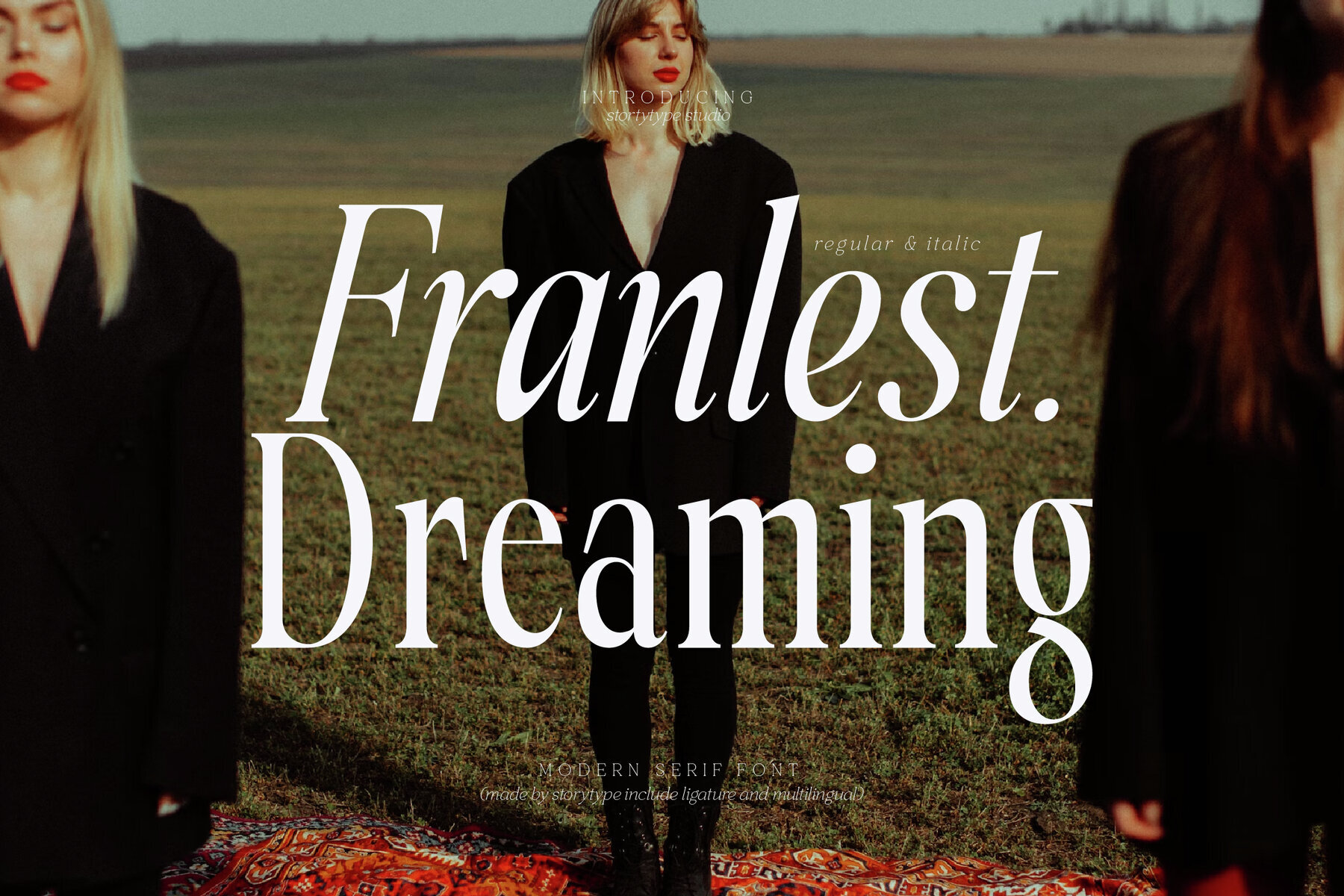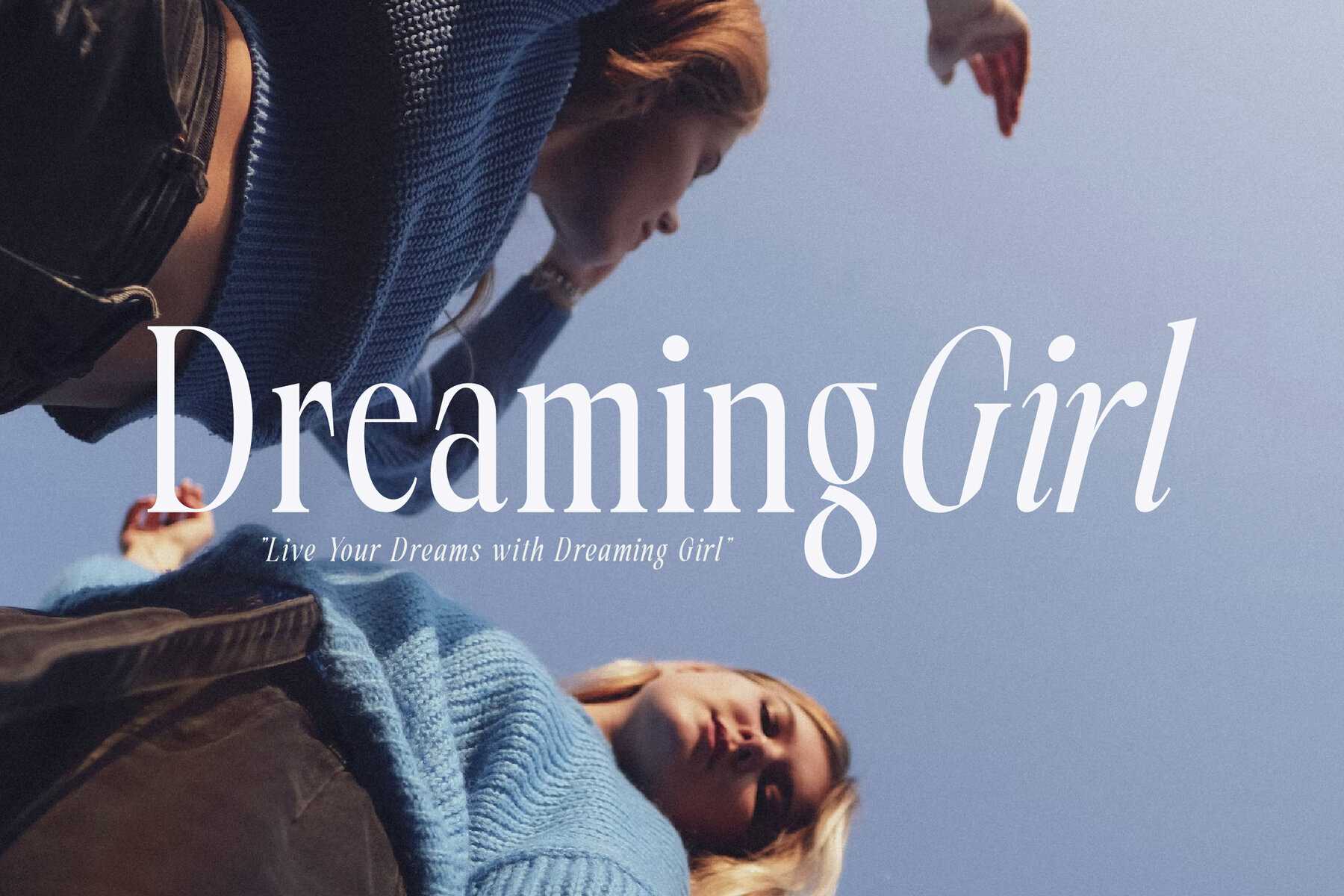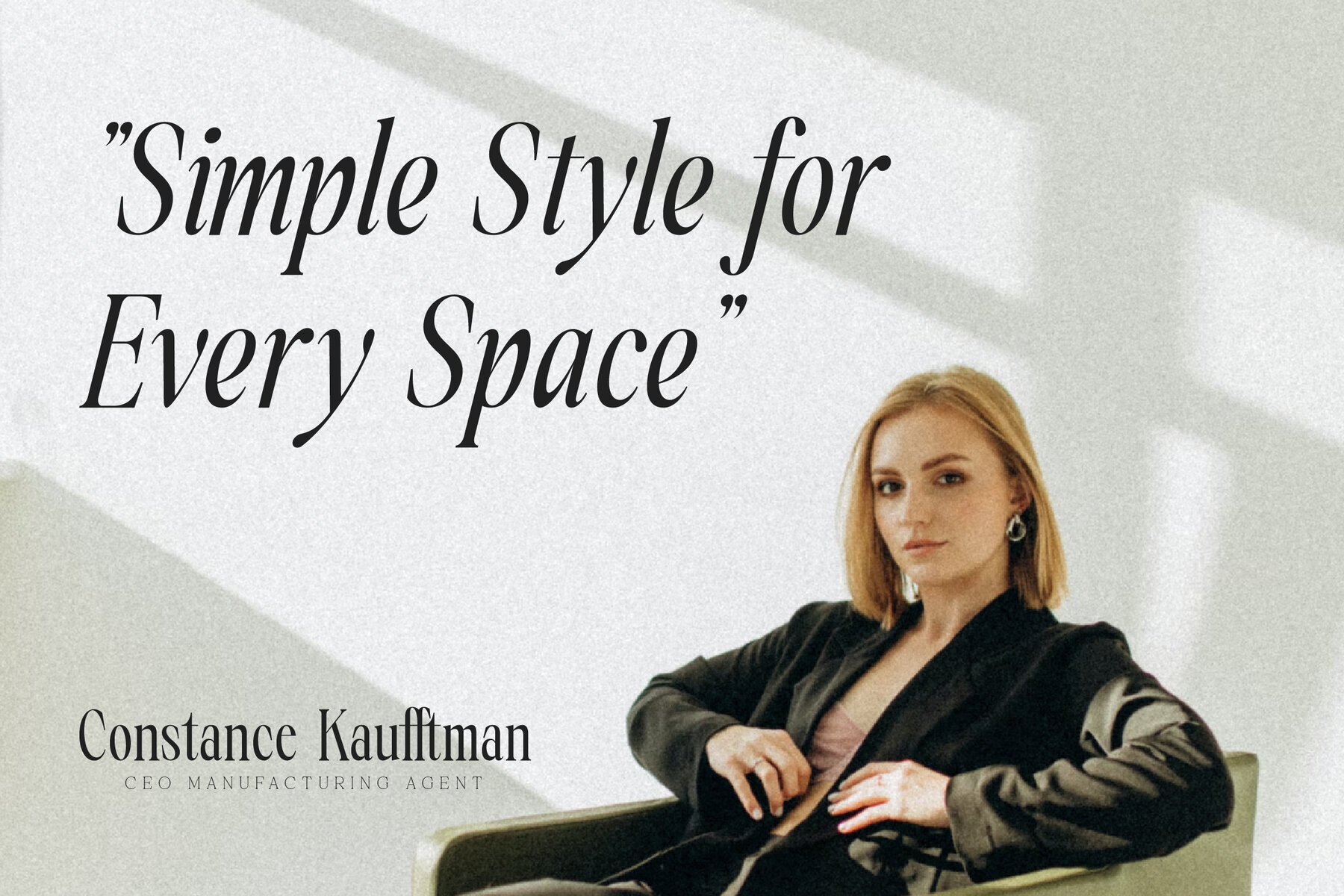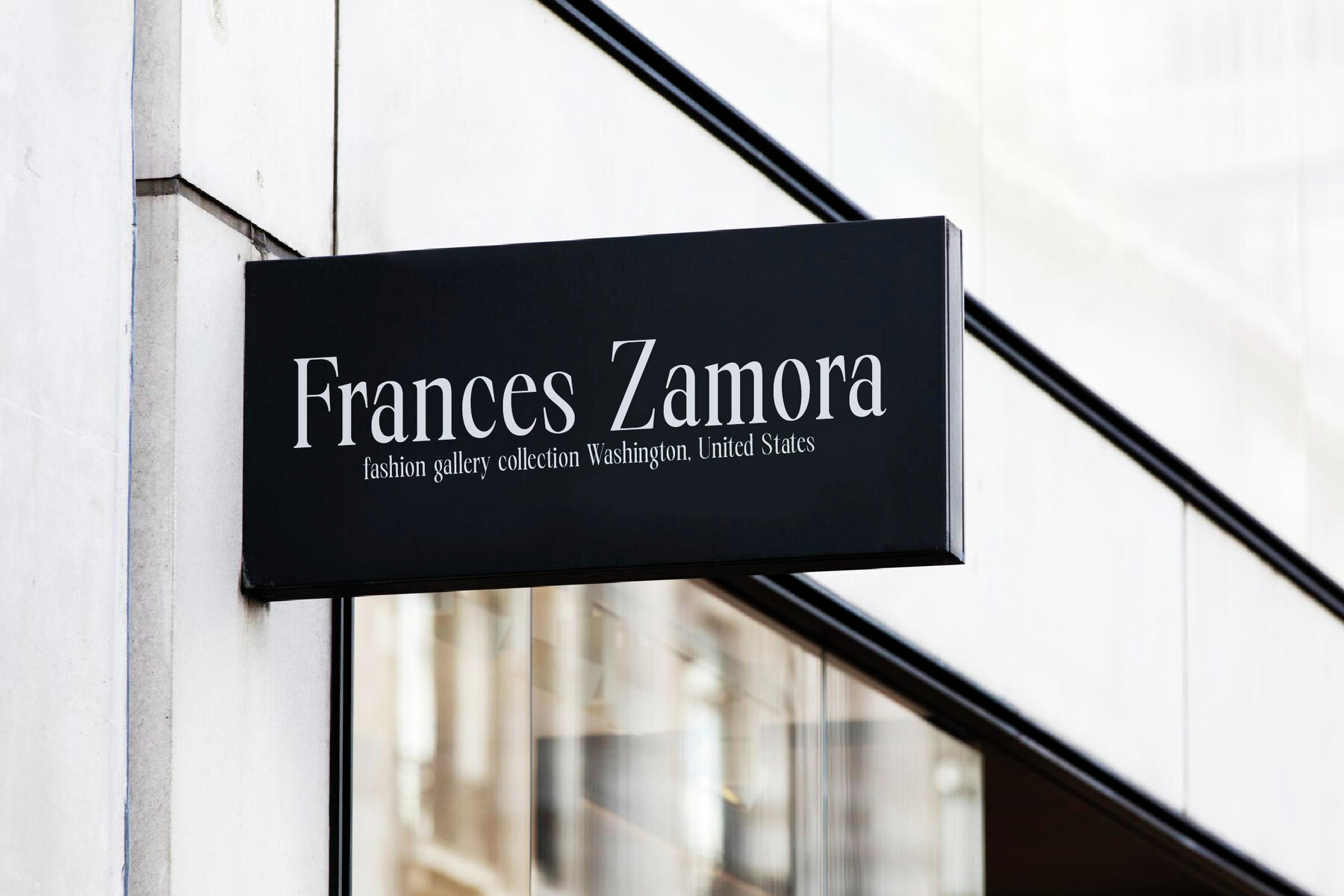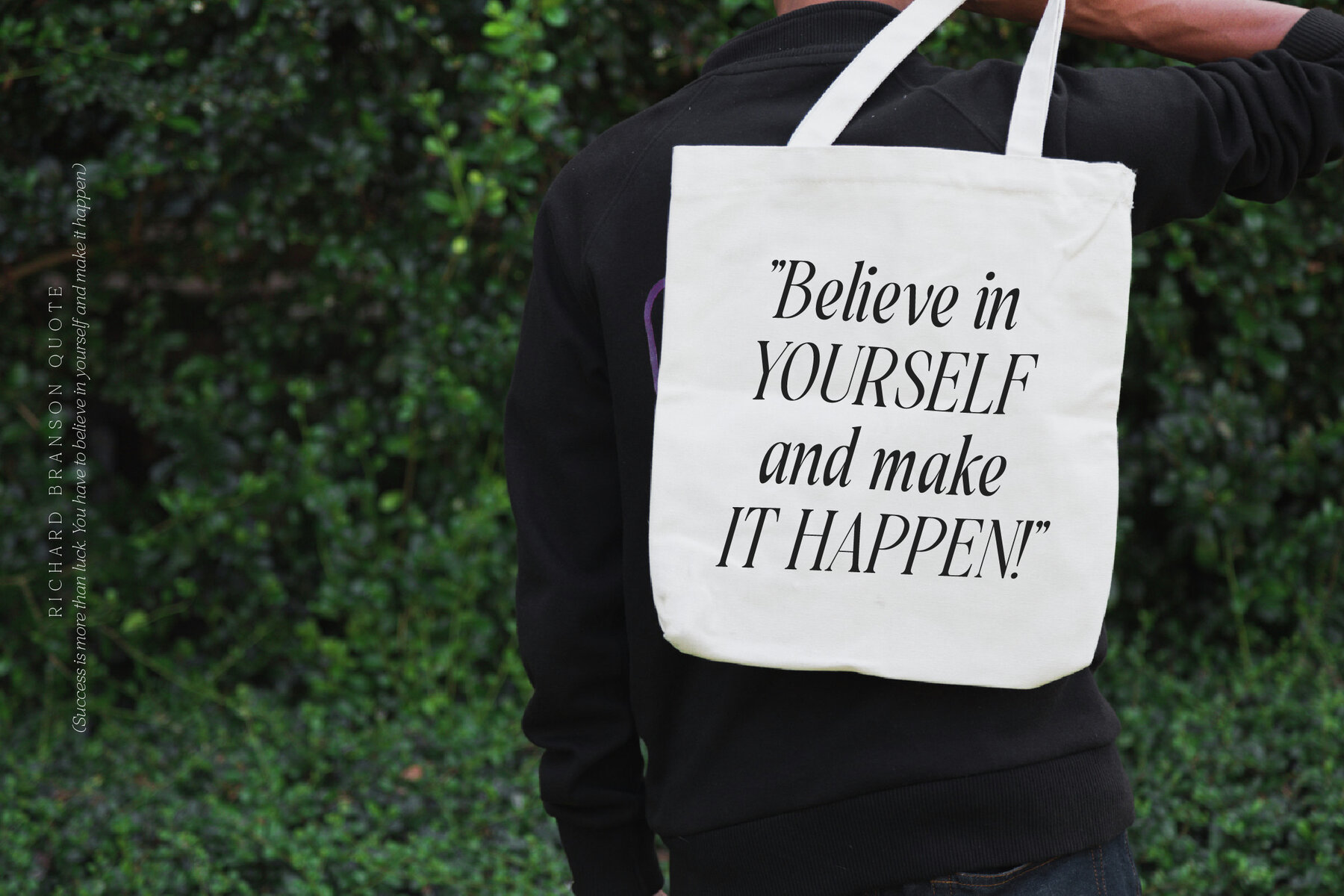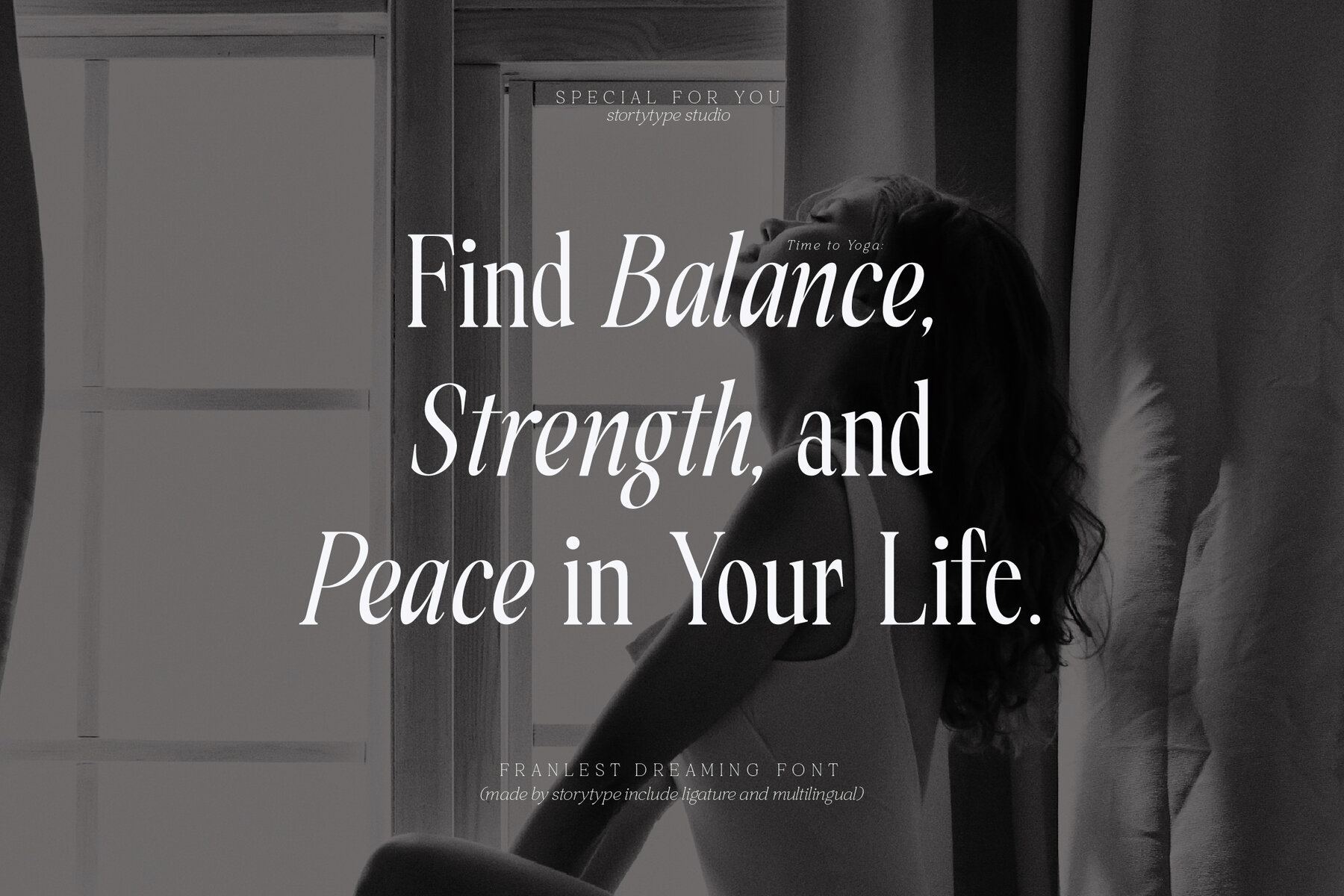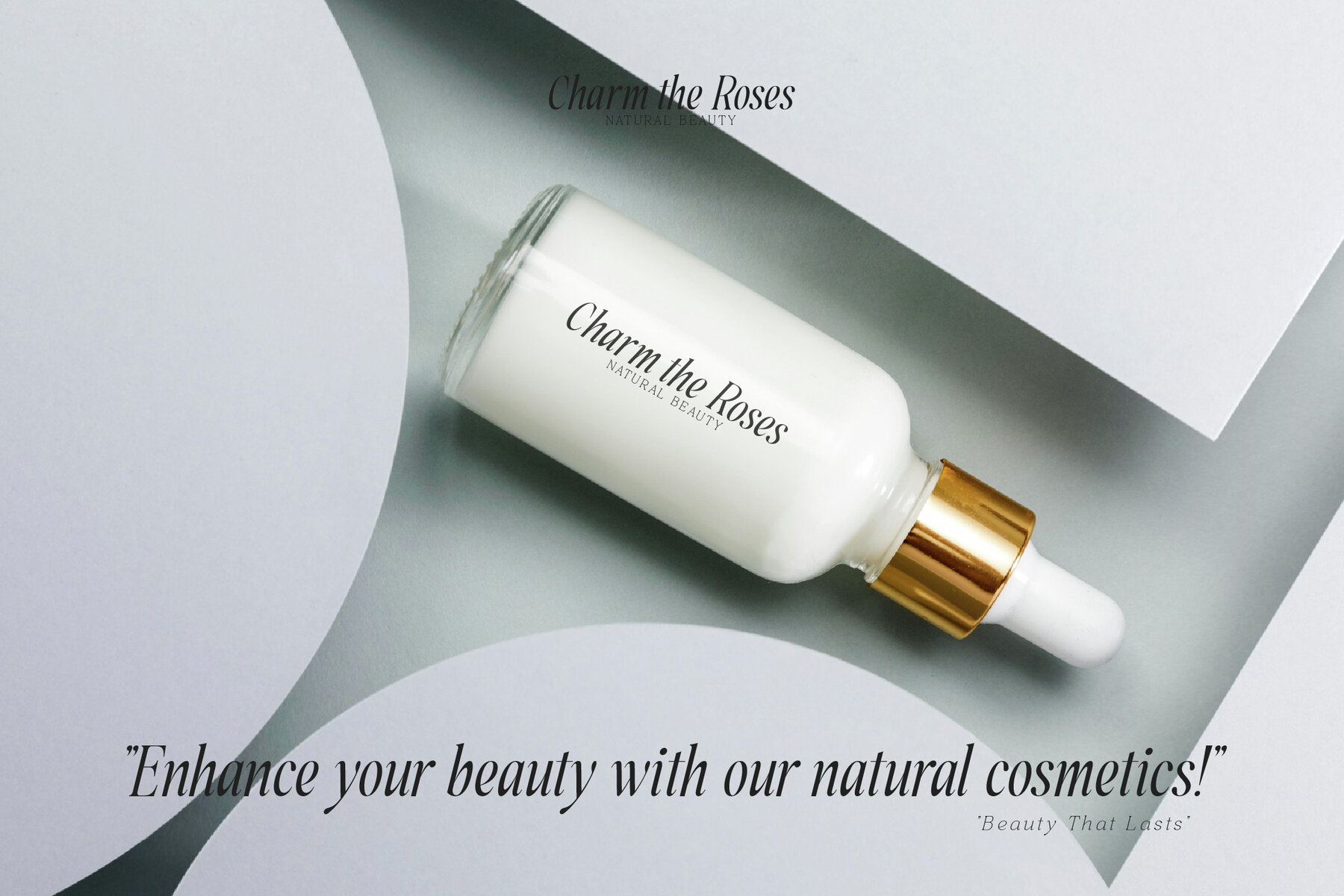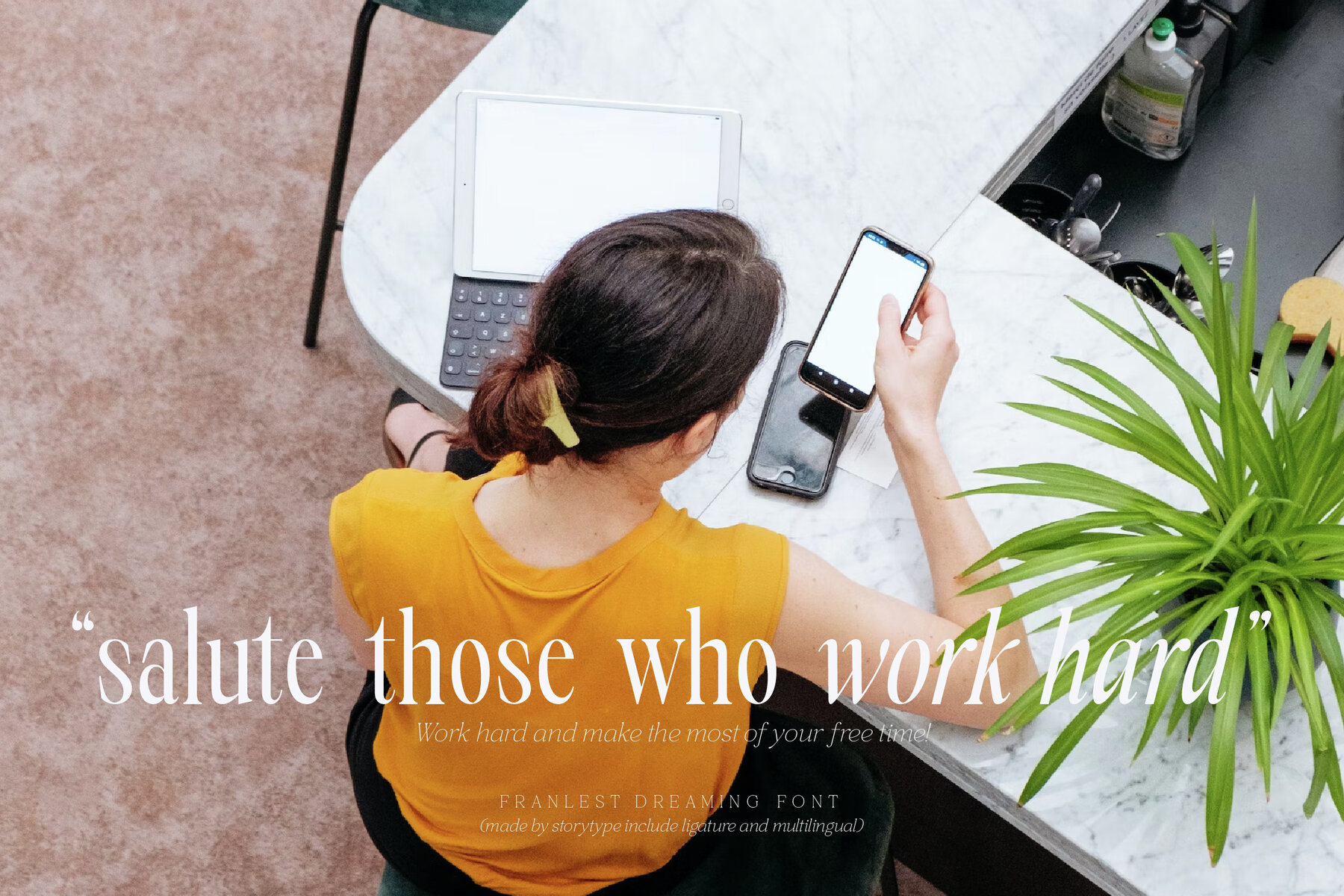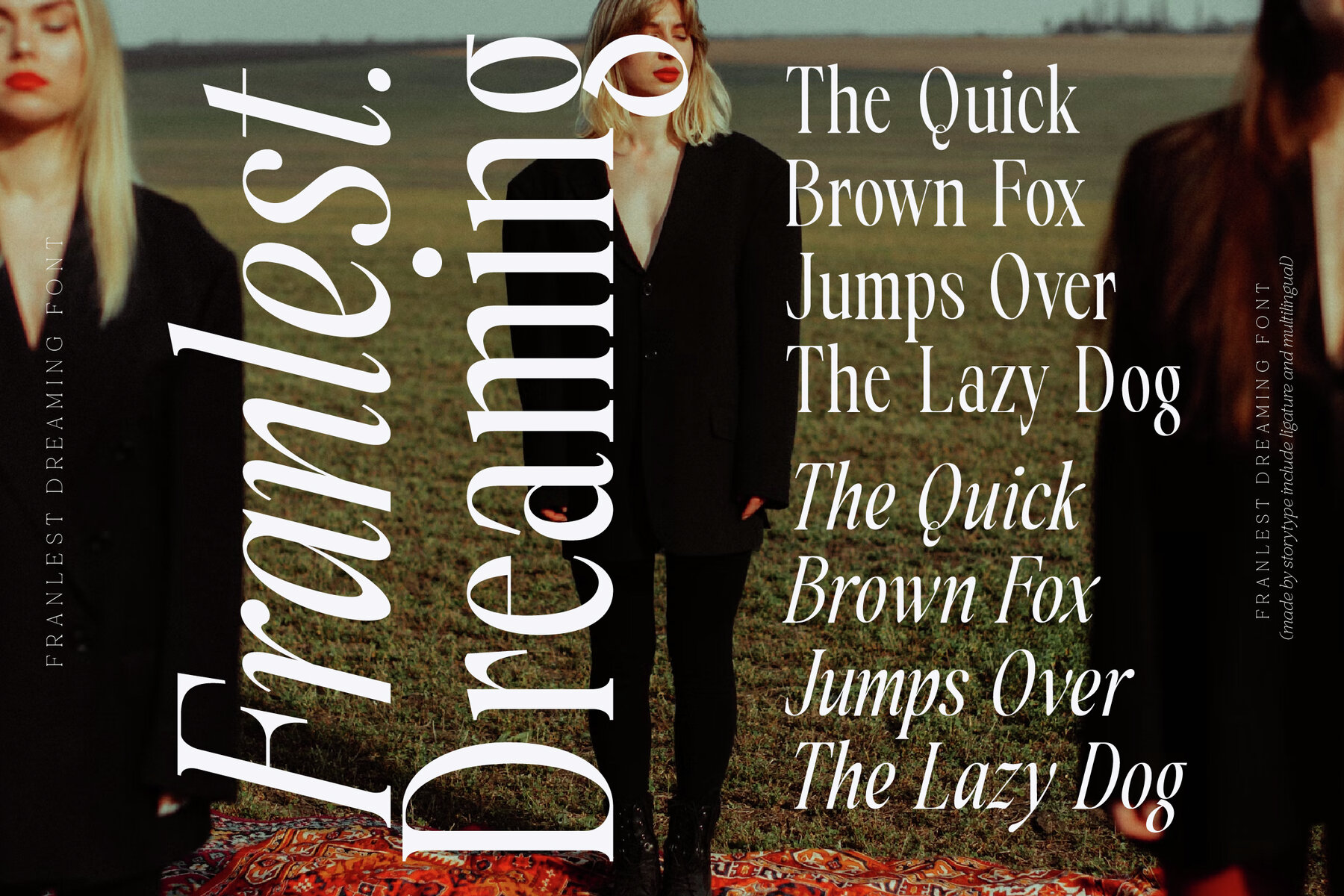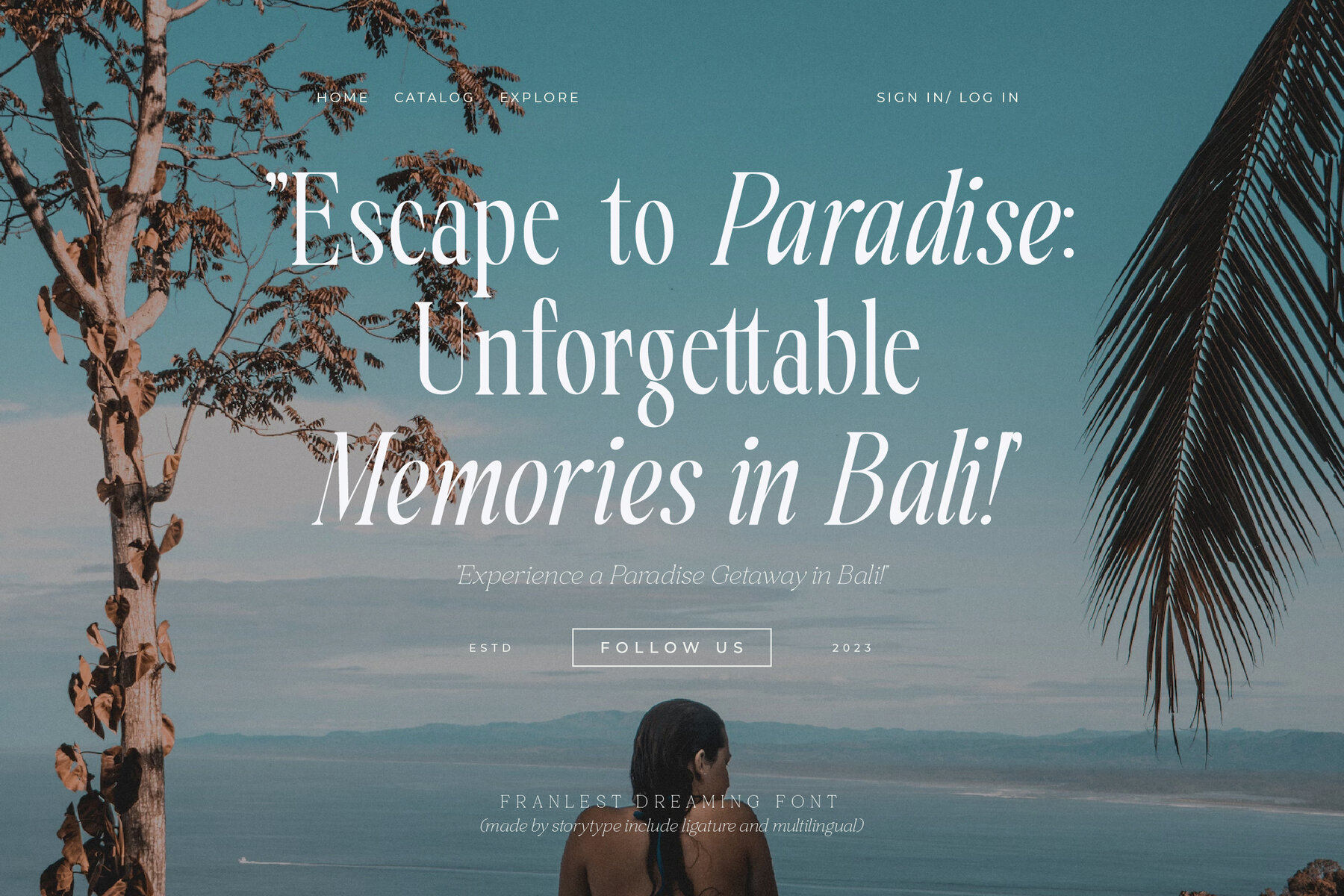
Franlest Dreaming Font
Franlest Dreaming blends the timeless appeal of classic serif typography with a distinctive modern sensibility. This typeface offers a unique approach to elegant branding, making it a valued resource for graphic designers seeking an elevated visual identity. With its refined curves and carefully crafted letterforms, Franlest Dreaming adapts seamlessly to both traditional and contemporary design contexts. Popular applications include luxury logos, editorial titles, fashion branding, magazine layouts, and bespoke lettering. The font’s character extends across a range of uses, from book covers to cinematic title sequences and stylish apparel designs. Its thoughtful alternates and ligatures invite designers to experiment with custom details, while multilingual support enables broader creative reach.Franlest Dreaming: Classic Serif with a Modern Edge